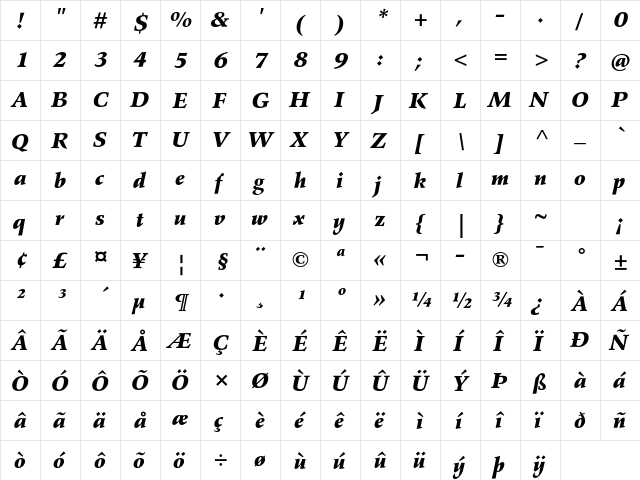
Agfa Wile Roman Std Black It
Design Context for Agfa Wile Roman Std Typeface
Agfa Wile Roman Std offers clean, dependable letterforms without strong stylistic allegiance, making it a practical choice for designers who need flexibility.